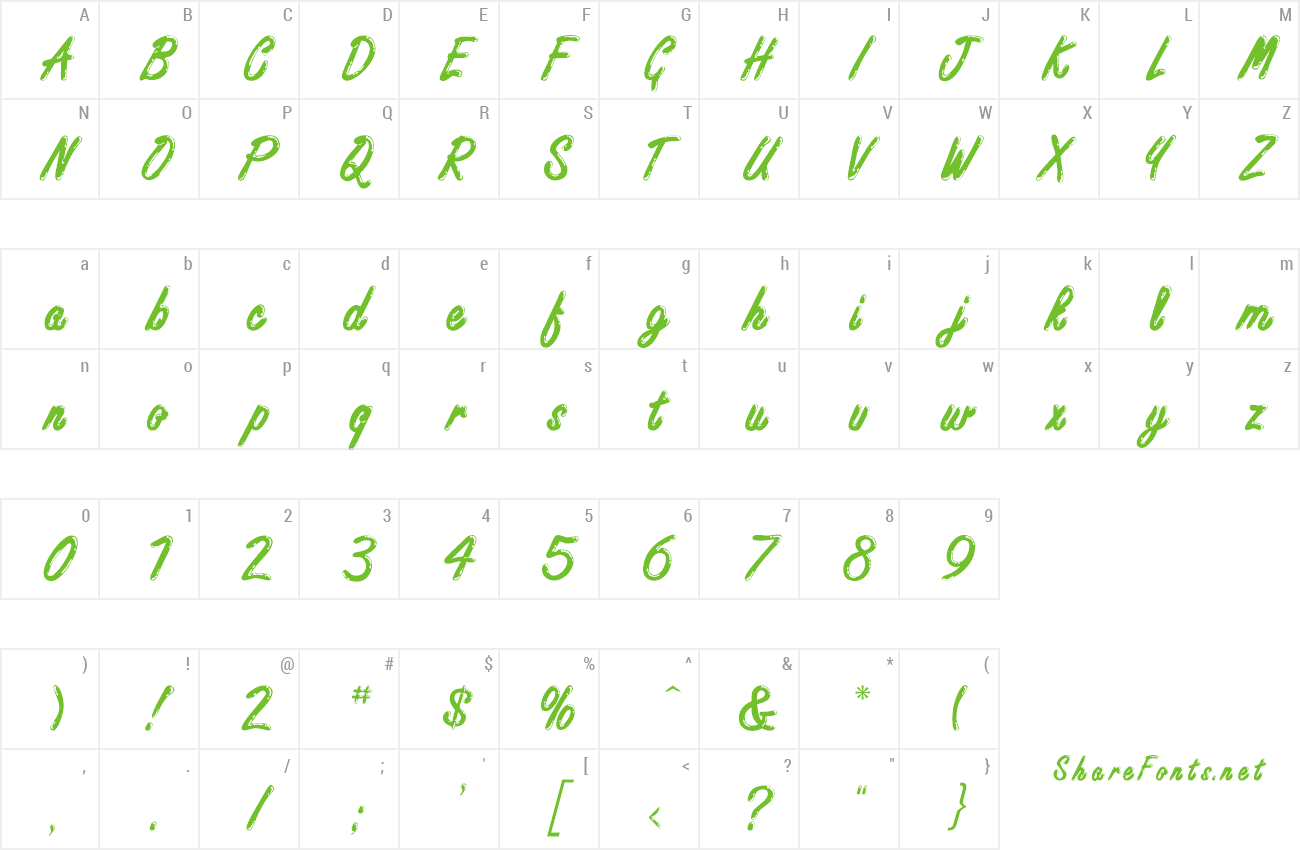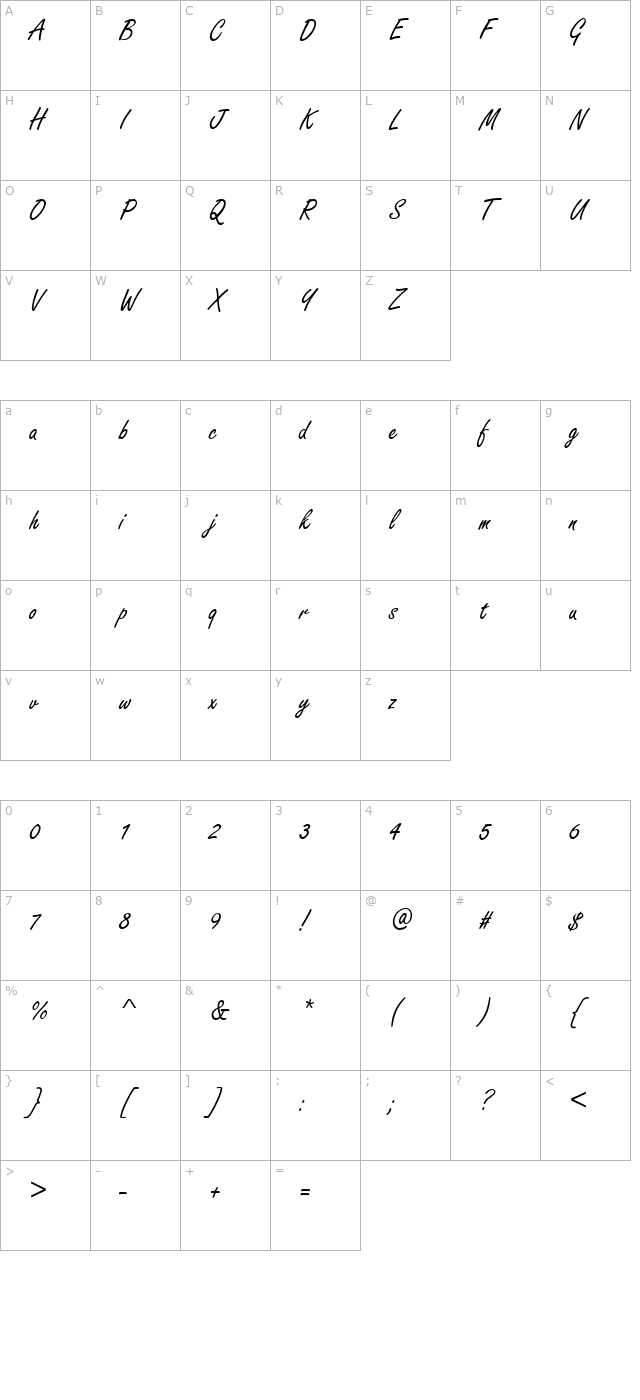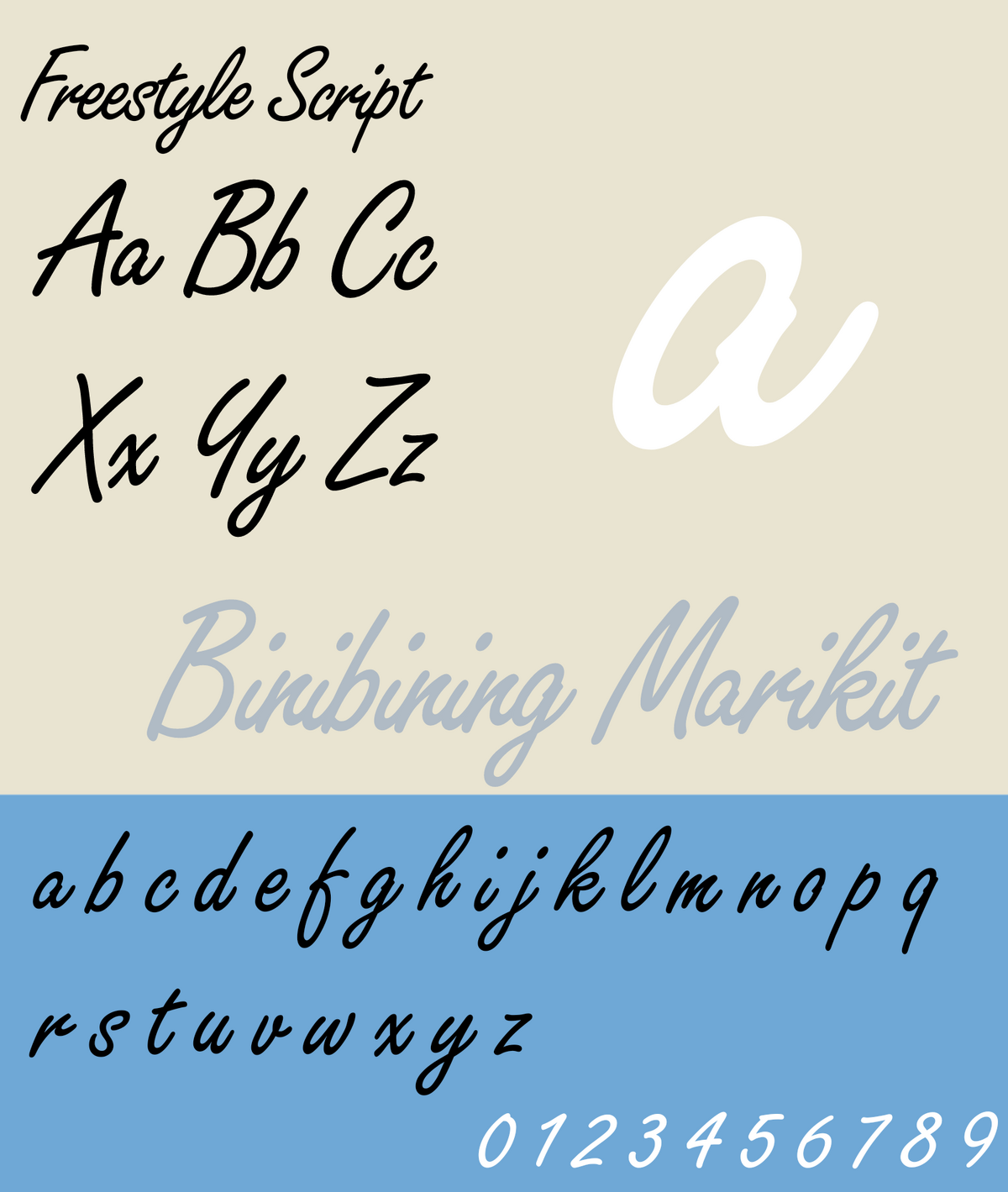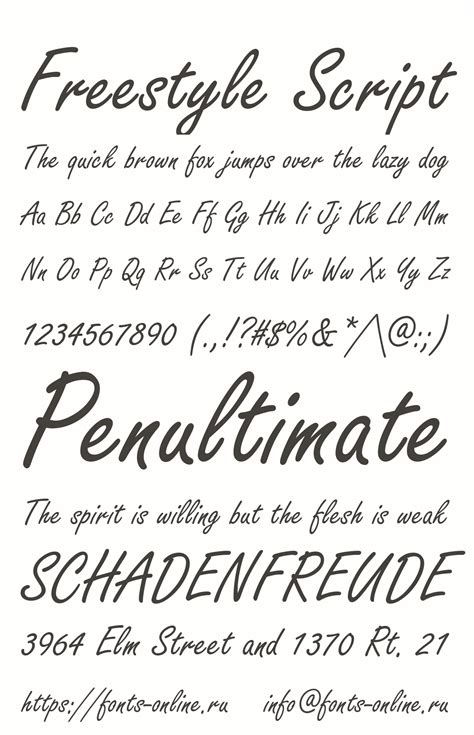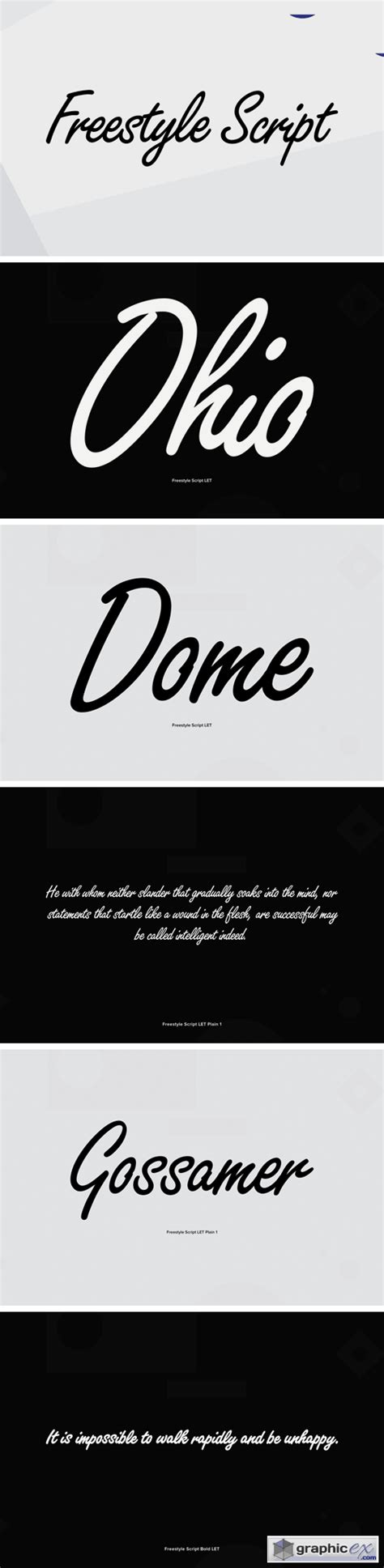
Freestyle Script Font Family
Freestyle Script Font Family - Freestyle script is the work of designer martin wait. ← back to family page. It is an informal display.
It is an informal display. Freestyle script is the work of designer martin wait. ← back to family page.
Freestyle script is the work of designer martin wait. ← back to family page. It is an informal display.
Freestyle Script Is The Work Of Designer Martin Wait.